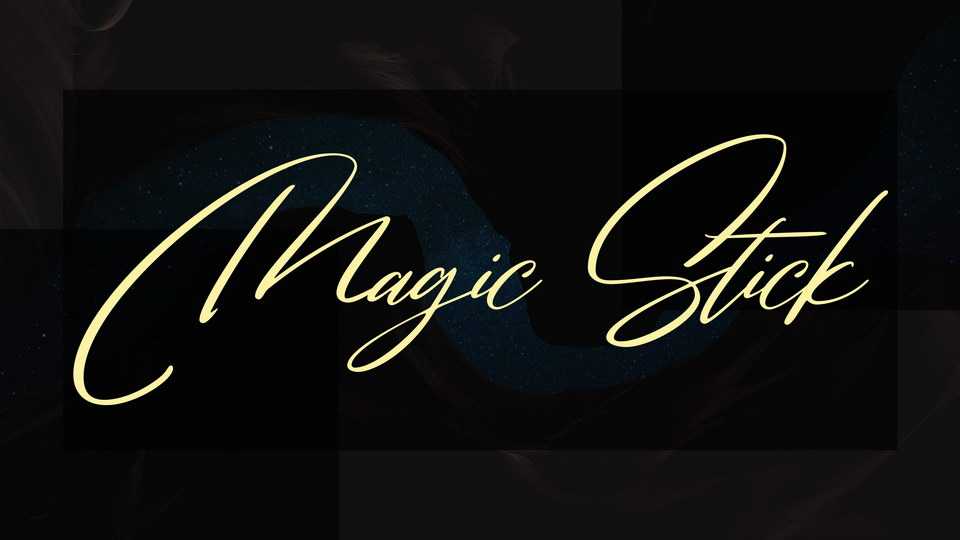
Download Magic Stick font, a gorgeous handwritten typeface with a signature style. Its timeless and flowing style makes Magic Stick fit for a large choice of designs.
Designer: Vunira Design